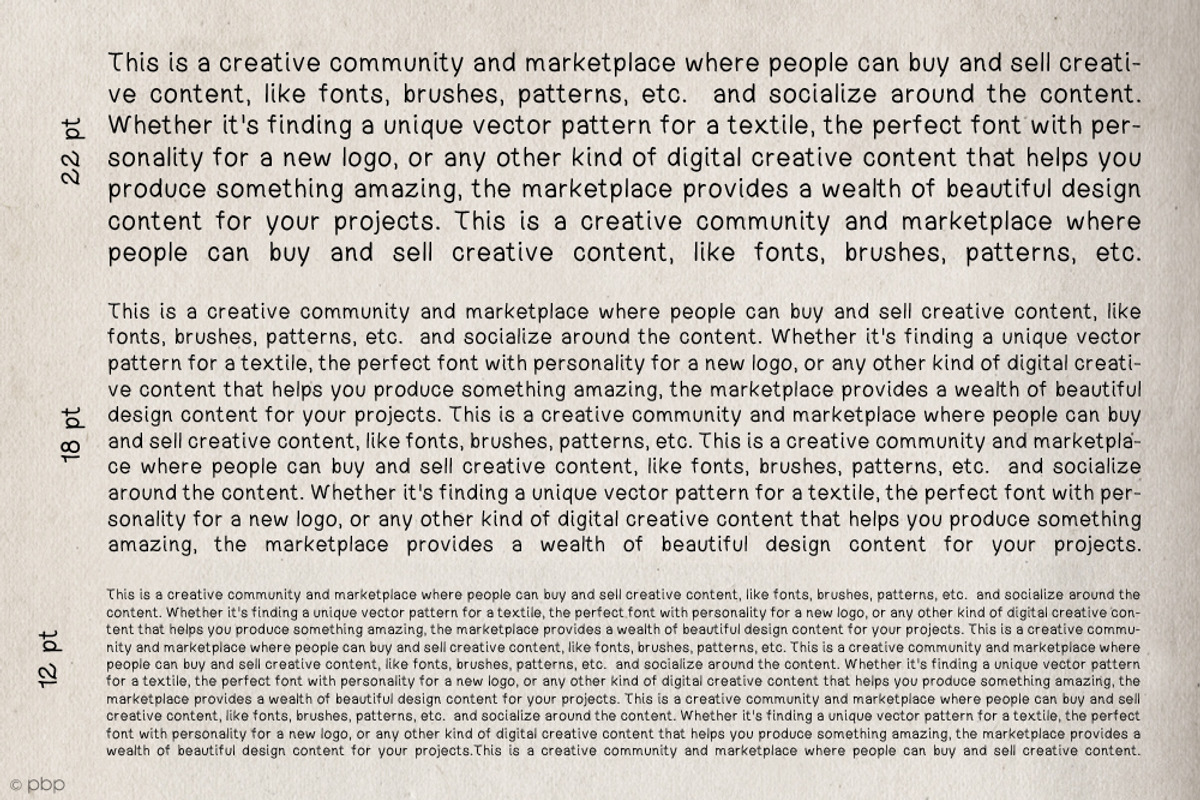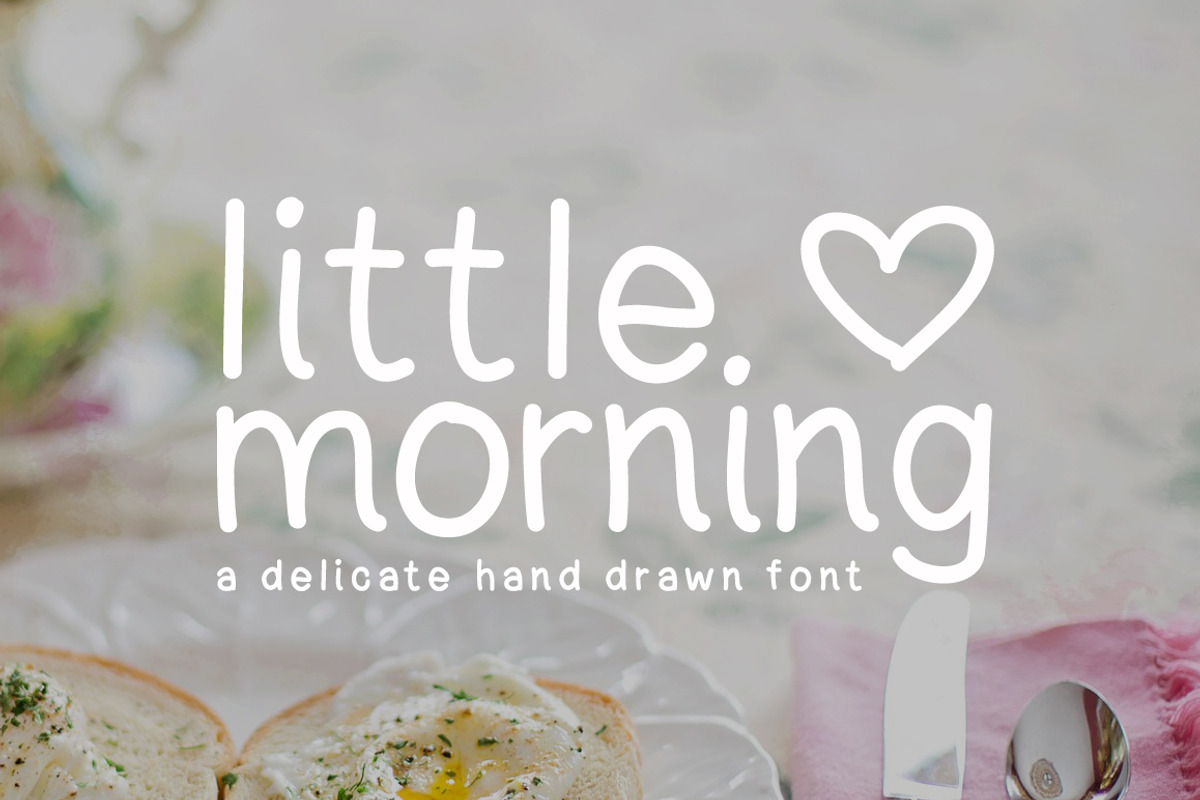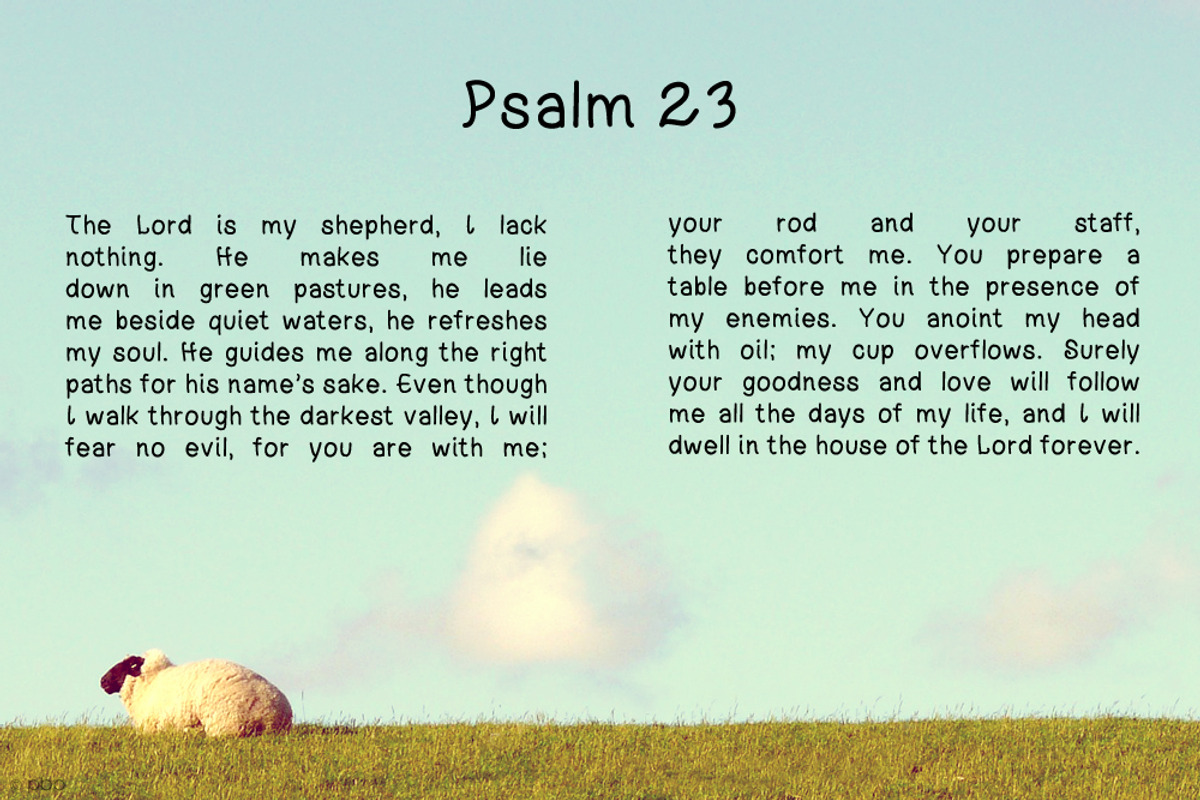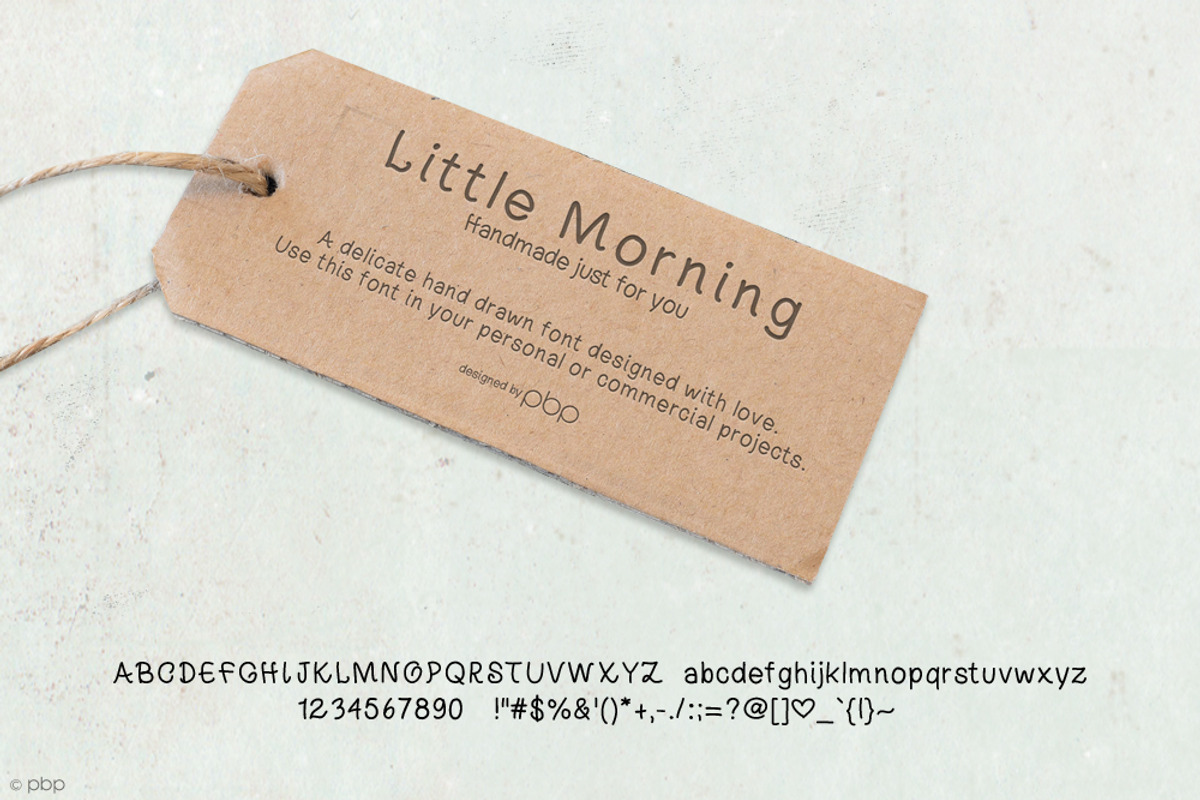
Handwriting Font Sans Serif
Handwriting Font Sans Serif by pixelcolours is a font selected for branding, posters, packaging, typography.
Why Handwriting Font Sans Serif is worth a look
Handwriting Font Sans Serif by pixelcolours fits naturally into Branding, posters, packaging, typography.